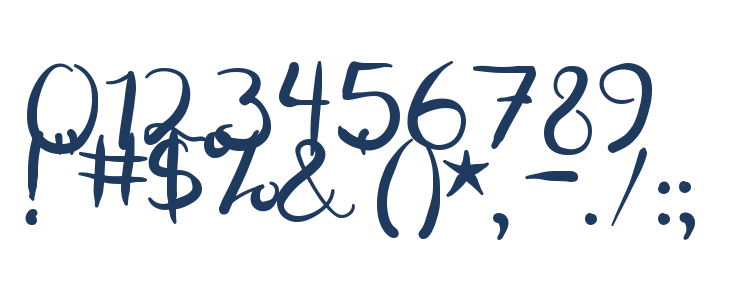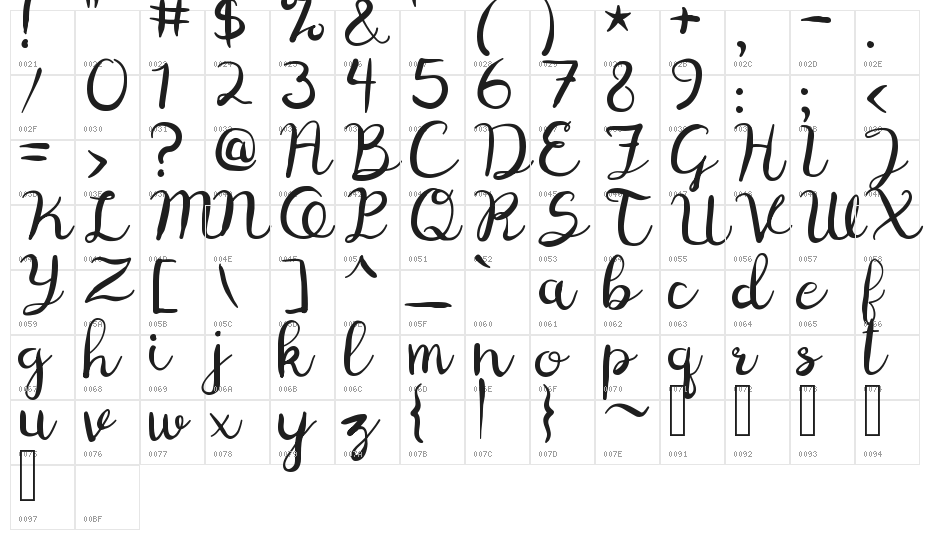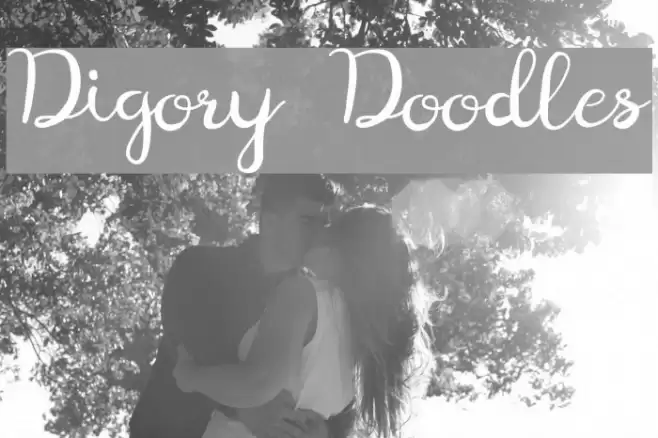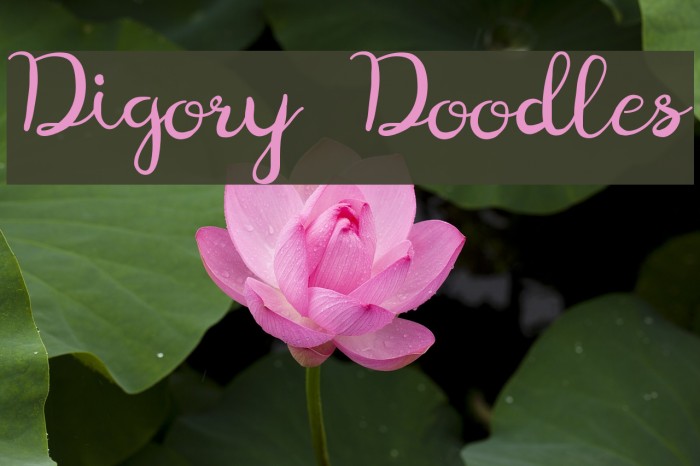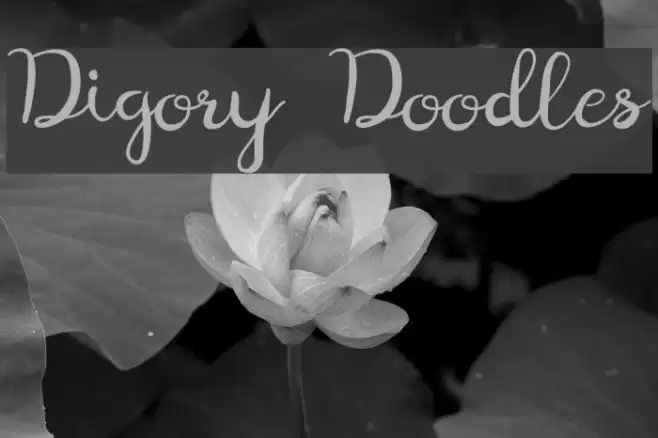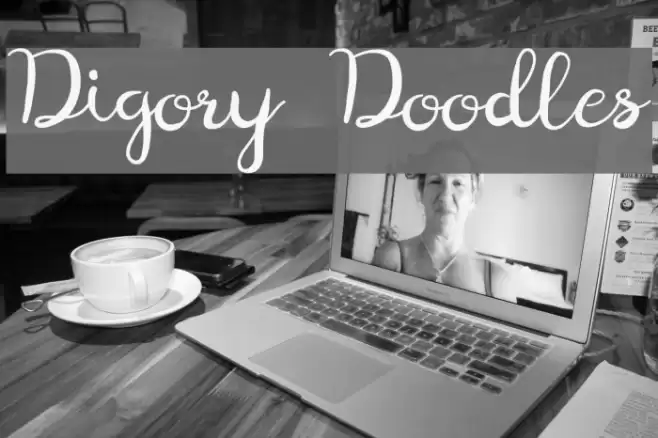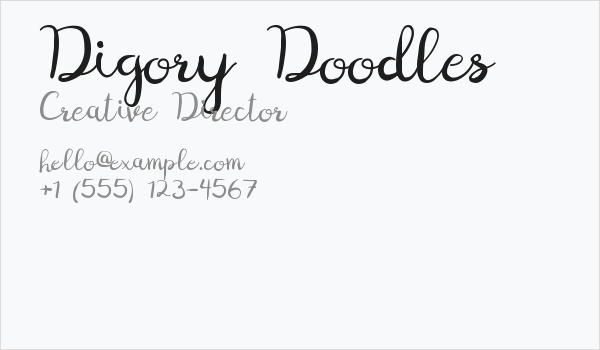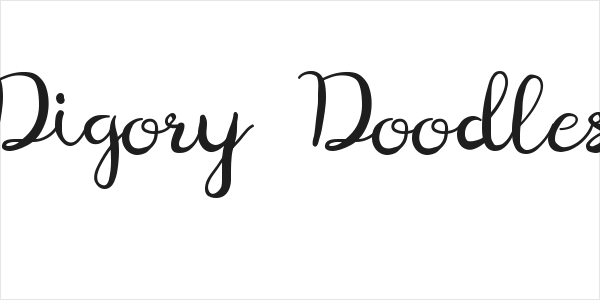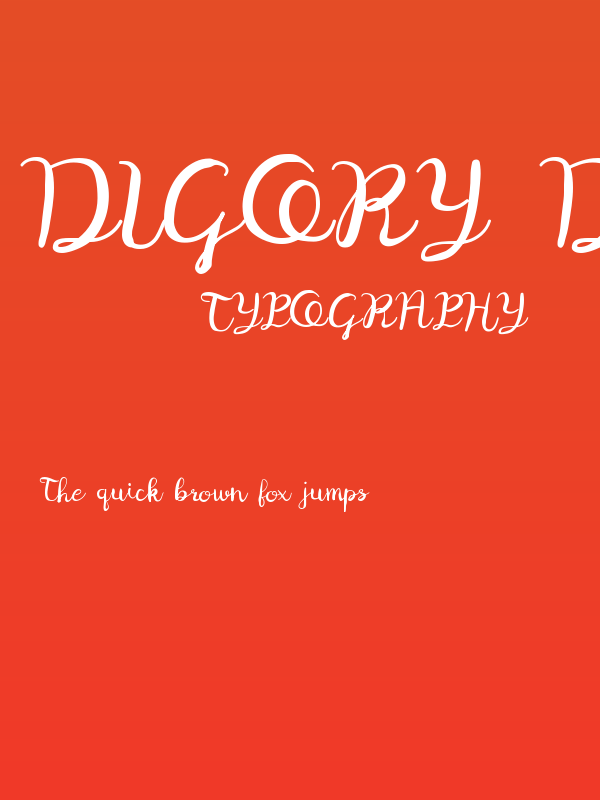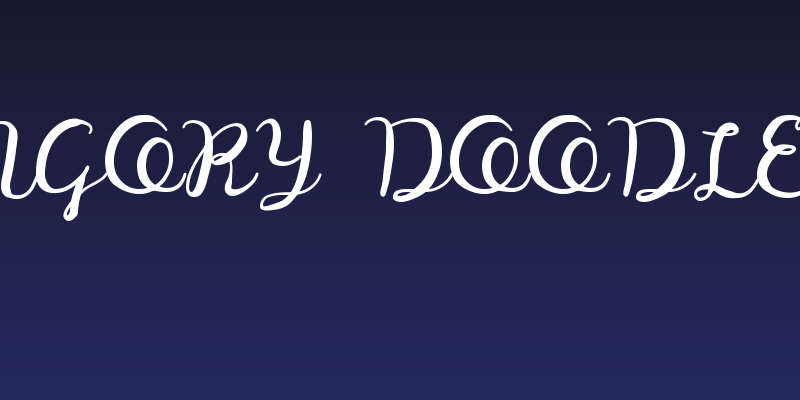
Digory Doodles Font
Digory Doodles Description
This font features a playful and whimsical script style, characterized by its fluid, cursive strokes and a handwritten appearance. The uppercase letters are elegantly curved with a slight slant, giving them a dynamic and lively feel. The lowercase letters maintain a consistent flow, enhancing the overall cohesiveness of the design. Numbers and special characters are crafted with the same playful spirit, ensuring a harmonious look across all elements. The font's unique charm makes it suitable for projects that require a personal touch, such as invitations, greeting cards, and creative branding.